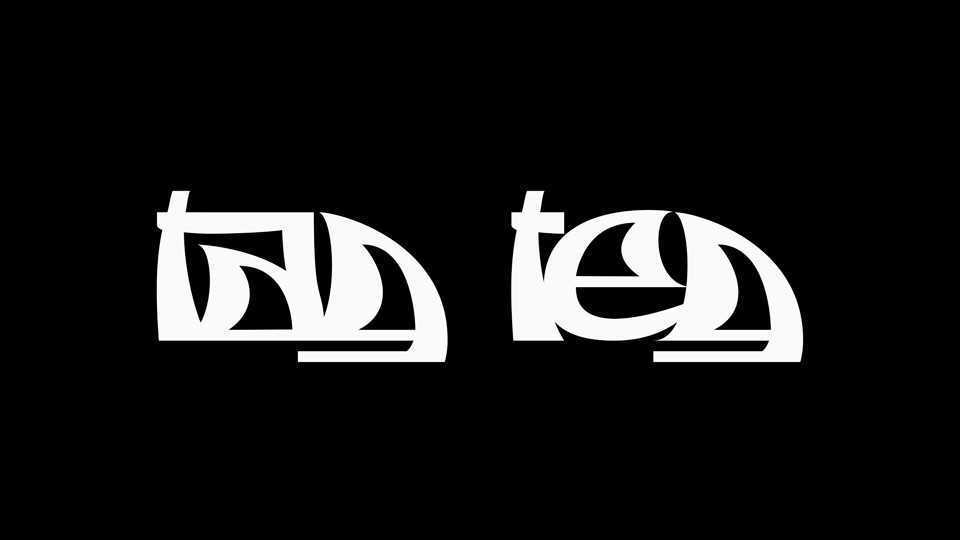
Download Tag Teg font, a bold display typeface inspired by graffiti and street art. Tag Teg is great for posters, t-shirt prints, album artworks and other projects.
Designer: Petr Kučera